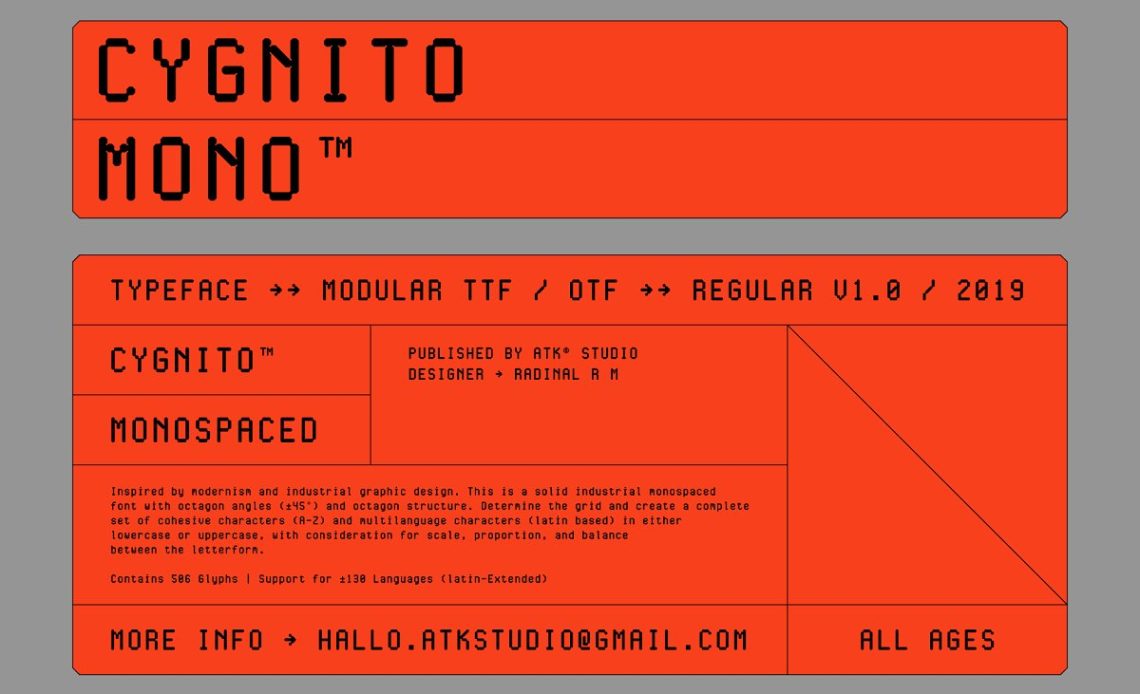
Are you a designer looking to add a fresh and unique touch to your designs? Look no further than the ATK Font Bundle - Vol.02! This incredible bundle created by Radinal Riki Mutaqin includes 14 typefaces and a whopping 124 fonts in both OTF and TTF formats.
So why choose the ATK Font Bundle - Vol.02? For starters, these fonts are perfect for elevating your designs and making them stand out from the crowd. Each font is meticulously crafted with a keen eye for detail, ensuring that your designs will look sleek, polished, and professional.
But it's not just about aesthetics - these fonts are also incredibly versatile and can be used in a variety of projects, from logos to social media graphics to print materials. And with a wide range of styles, from bold and impactful to elegant and refined, you're sure to find the perfect font to match your unique design vision.